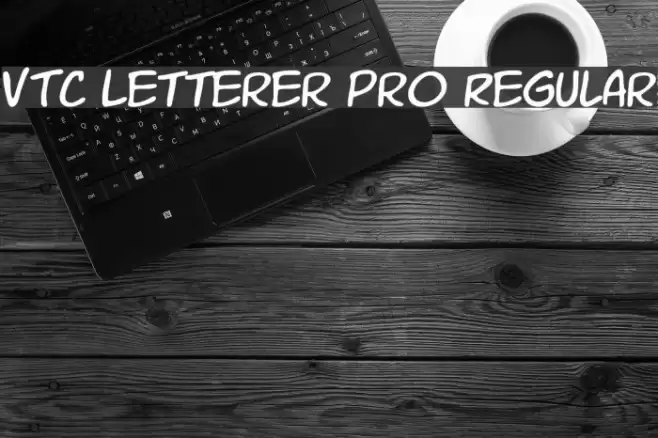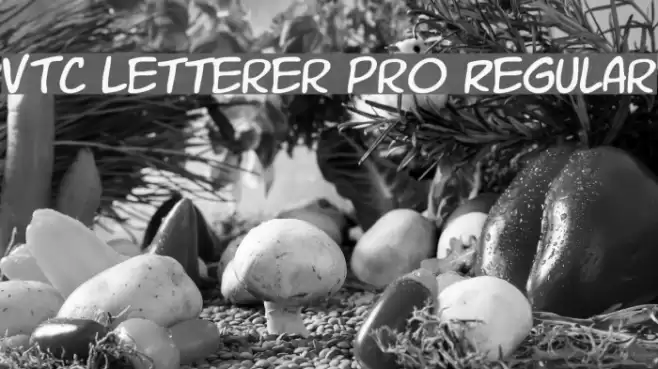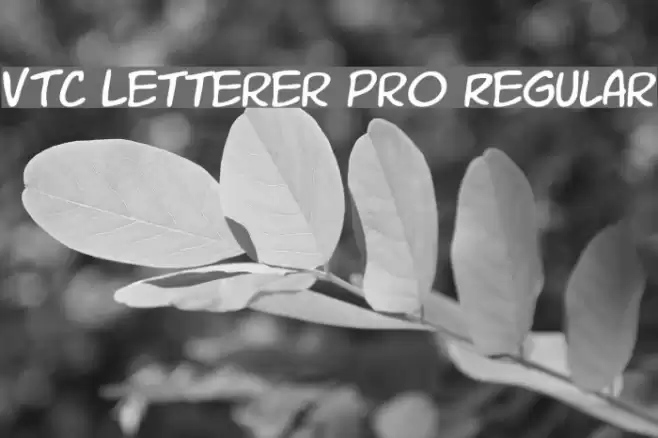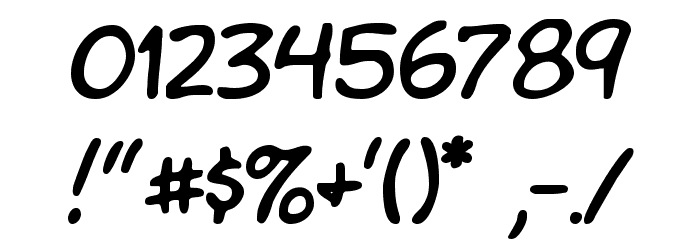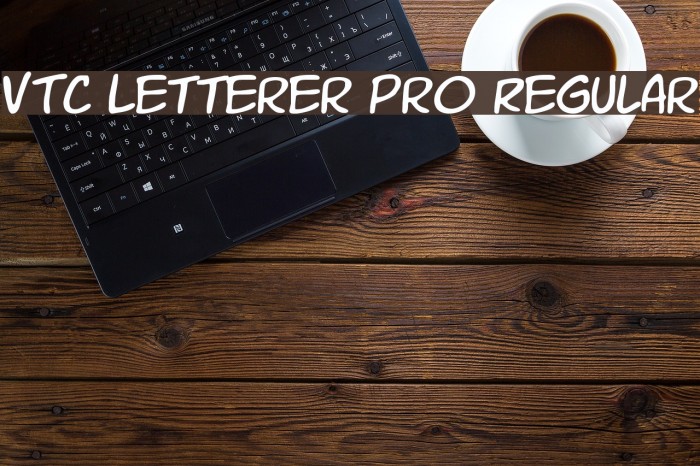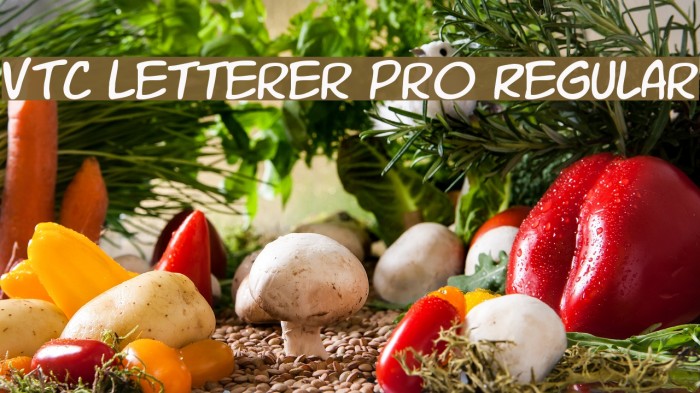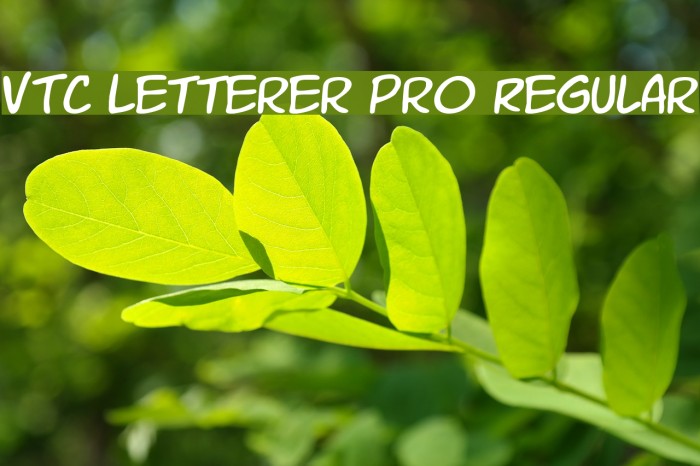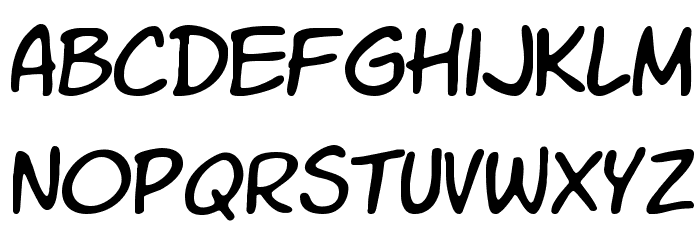
VTC Letterer Pro Regular Font
VTC Letterer Pro Regular Description
This font features a playful and casual handwritten style, characterized by its rounded and smooth letterforms. The strokes are bold and consistent, giving it a friendly and approachable appearance. The uppercase and lowercase letters maintain a uniform width, contributing to a cohesive look. The numerals and special characters are designed to match the overall style, ensuring readability and visual harmony. This font's informal aesthetic makes it suitable for projects that aim to convey warmth and friendliness.
A playful, handwritten font with bold, rounded strokes from Uncategorized fonts.
- Proposed Projects: Ideal for greeting cards, children's books, casual branding, and social media graphics.
- Overall Style: Casual
- Use Case: Headlines, Logos, Informal Text